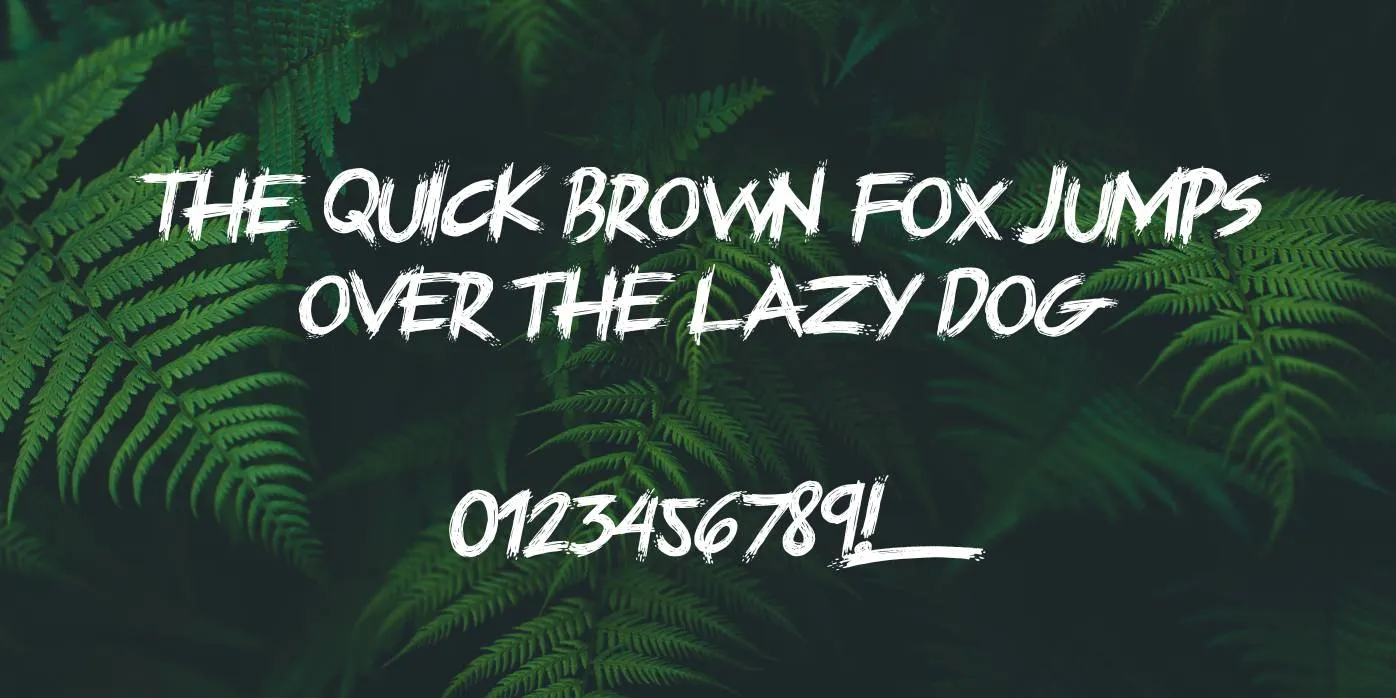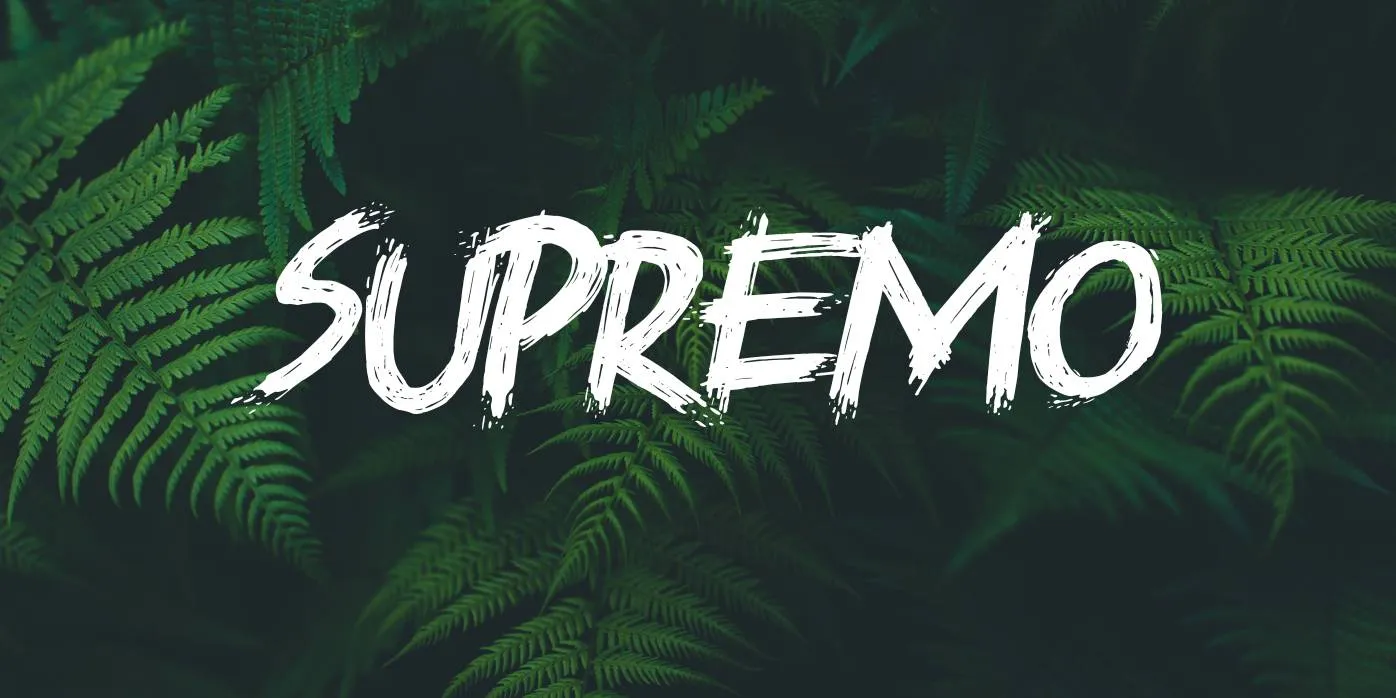
Supremo Font
Today we discuss Supremo Font. This is a very elegant brush texture. It was designed by a Swiss-type studio named Premiere Graphics. This font was designed for making so many projects but sometimes it is difficult to read in small sizes.
It falls under the table version 1.000 and supports Unicode 2.0 BMP only. It contains 120 glyphs and 2048 units per Em. You can be paired with other fonts like konichiwa font to give a more attractive and elegant look to your projects. The font’s weight is medium (normal) and the font’s width is also medium (normal).
It was used by so many iconic brands for their projects. Amazing logos can be made using this font. You can be used for making movies and game titles. This font has various types of alphabet characters that include symbols, numbers, small letters, capital letters, Punctuation, and special characters.
You can use this font for making projects of different brands. You can make tattoos using this font too. It can be used for branding and product packing. This font is perfect for making horror and scary movie titles and events like Halloween.
FAQs! Who is the designer of Supremo Font? This font is designed by a Swiss designer Premiere Graphics. It is a very popular font and can be used for many projects.